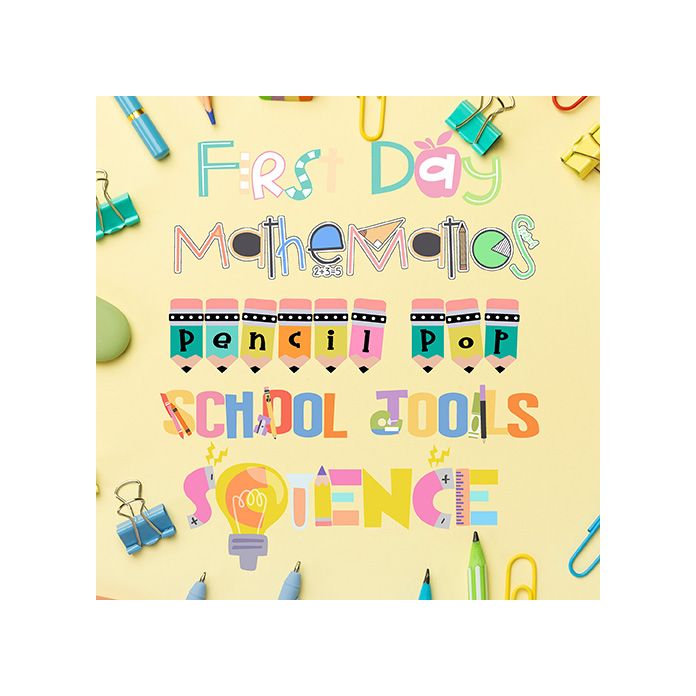
This full-color font bundle features five font full-color alphabets, each with an emphasis on school! Three of these font have a full alt-case with addition colors of each letter that you can access through your system's character map. These fonts works best for titles, displays, posters and more. Please note color fonts will show as black in non compatible programs. These font types are compatible with Silhouette Studio.